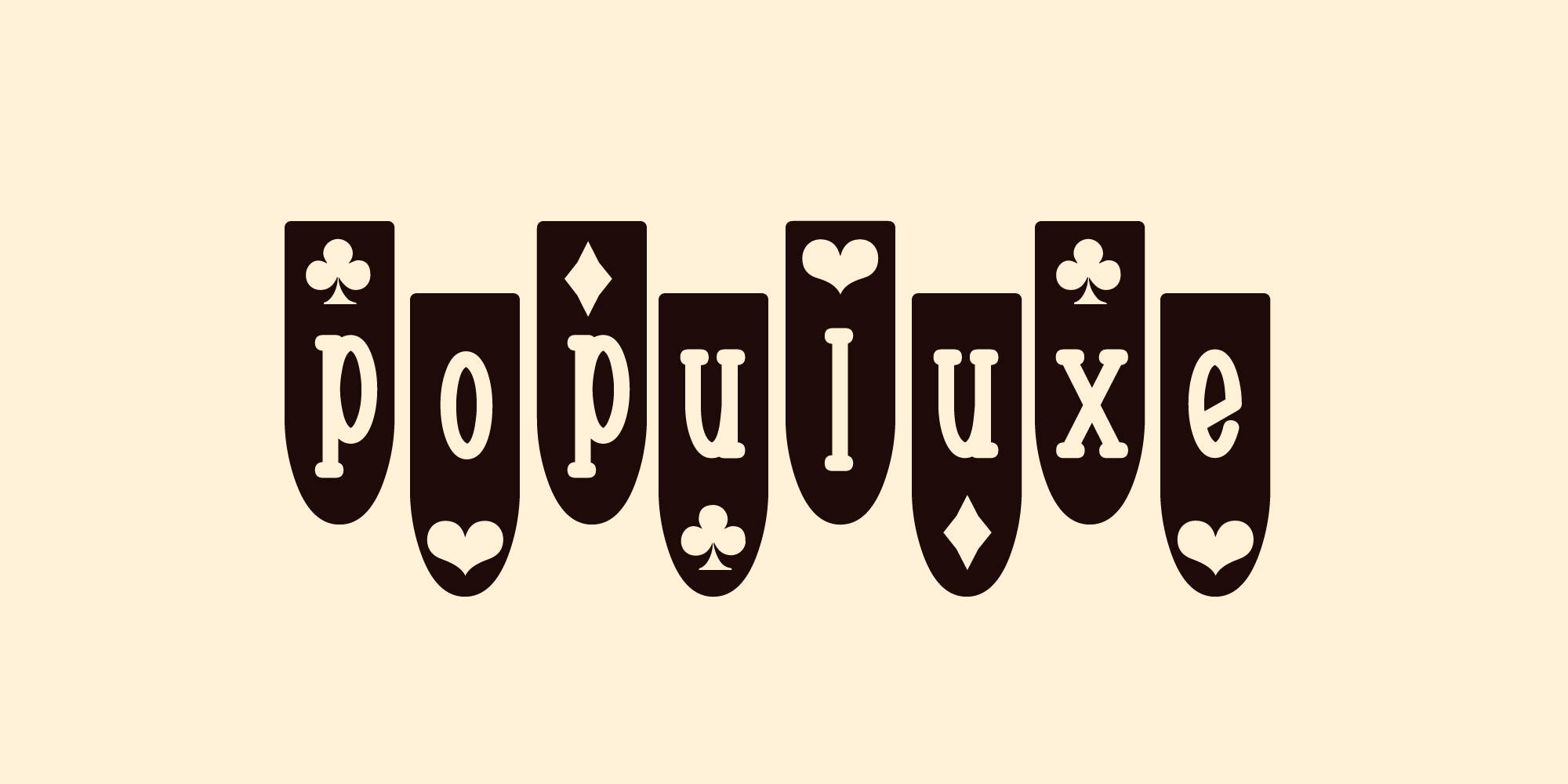
I couldn't leave Chachie there all alone and boring. So I made an extended family of retrofonts to compliment the original. Its a big file kids, but there are five, count 'em, 5 different sets of fonts there. So that should tide you over for a while.